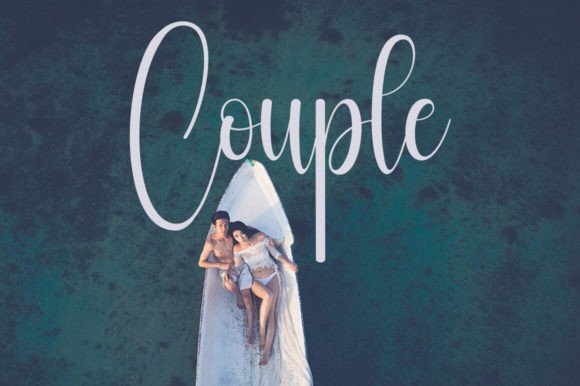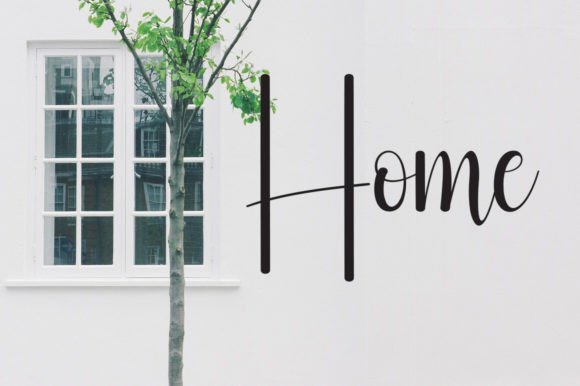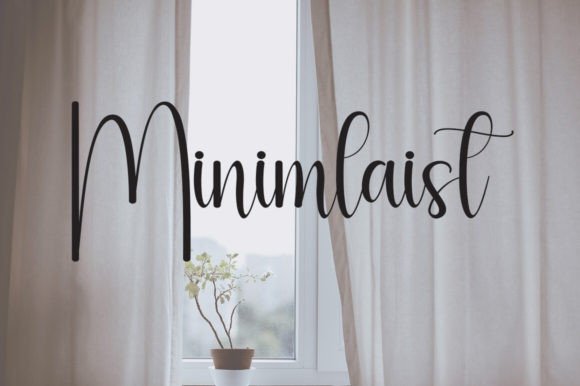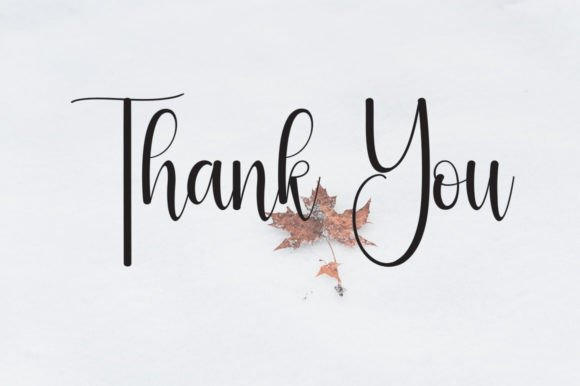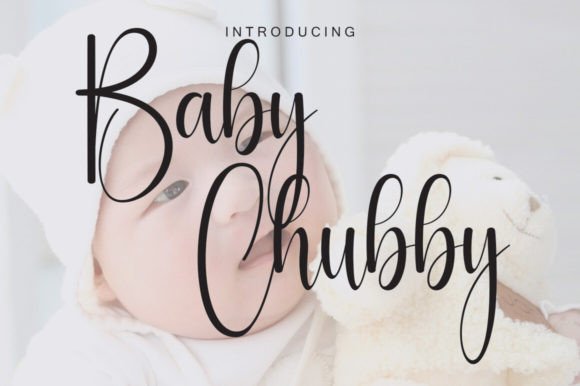
Baby Chubby Font: The Sweetest Addition to Your Design Collection
Welcome to Baby Chubby, an elegantly syrupy handwritten script that prides itself on its fluid cursive style. This tender typeface adapts beautifully to an array of design concepts, its charming curvatures infusing any project with a sense of joy and romance. Perfect for that extra touch of whimsy and warmth, Baby Chubby promises to delicately transform your design endeavours.
The Charm of Baby Chubby Font
Baby Chubby Font is a beautiful, handwritten script that exudes elegance and sophistication. Its fluid cursive style makes it perfect for a wide range of design projects, from wedding invitations and branding materials to social media graphics and digital art. The font’s charming curvatures and delicate lines give it a whimsical and romantic feel, making it ideal for designers and crafters looking to add a touch of personality to their work.
Key Features of Baby Chubby Font
- Fluid Cursive Style: Baby Chubby Font features a beautiful, flowing cursive style that is perfect for creating elegant and sophisticated designs.
- Charming Curvatures: The font’s delicate lines and curvatures give it a whimsical and romantic feel, making it perfect for a wide range of design projects.
- Adaptable: Baby Chubby Font adapts beautifully to an array of design concepts, making it a versatile addition to any design collection.
- Easy to Read: Despite its elegant and cursive style, Baby Chubby Font is easy to read, making it perfect for body text and headlines.
Uses of Baby Chubby Font
Baby Chubby Font is a versatile typeface that can be used in a wide range of design projects, including:
- Wedding Invitations: The font’s elegant and romantic feel makes it perfect for wedding invitations, save-the-date cards, and other wedding-related designs.
- Branding Materials: Baby Chubby Font is ideal for creating branding materials, such as logos, business cards, and letterheads, that require a touch of elegance and sophistication.
- Social Media Graphics: The font’s whimsical and romantic feel makes it perfect for creating social media graphics, such as Facebook posts, Instagram stories, and Pinterest pins.
- Digital Art: Baby Chubby Font can be used in digital art projects, such as illustrations, watercolor designs, and mixed media art.
Tips for Using Baby Chubby Font
Here are some tips for using Baby Chubby Font in your design projects:
- Pair it with a Sans-Serif Font: Pair Baby Chubby Font with a sans-serif font, such as Arial or Helvetica, to create a beautiful contrast between elegant and modern.
- Use it for Headlines and Titles: Use Baby Chubby Font for headlines and titles to add a touch of elegance and sophistication to your designs.
- Keep it Simple: Keep your designs simple and clean to let the beauty of Baby Chubby Font shine through.
In conclusion, Baby Chubby Font is a beautiful and versatile typeface that can add a touch of elegance and sophistication to any design project. Its fluid cursive style, charming curvatures, and adaptable nature make it perfect for a wide range of design applications, from wedding invitations and branding materials to social media graphics and digital art. With its ease of use and flexibility, Baby Chubby Font is sure to become a favorite among designers and crafters.
- What is Baby Chubby Font?: Baby Chubby Font is a beautiful, handwritten script that features a fluid cursive style and charming curvatures.